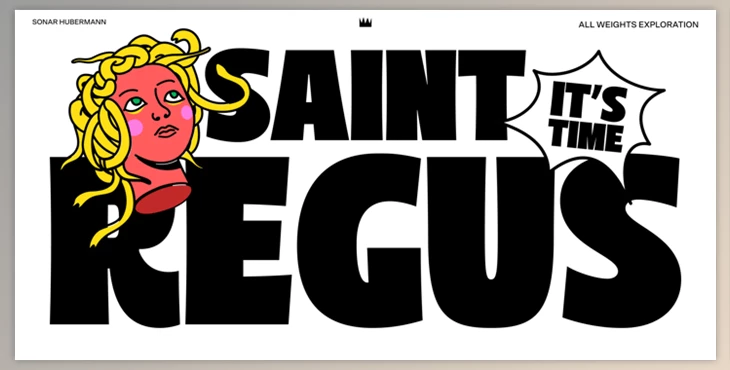
Saint Regus Font Family: The story starts with Condensed, Standard & Expanded styles. Saint Regus was created and designed with a family-friendly typeface in the back of your mind. It's growing due to its unique, charismatic, and bold character. The family has a total of 8148 regular glyphs and the ability to use them in a multilingual context. The possibilities are enormous potential for designs, print and digital. Saint Regus's development tried to investigate the effects of its proportional display design.
The idea was initially based on standard weights (Roman) and later became a huge family with 21 designs that could be used for colossal design assets for every design.